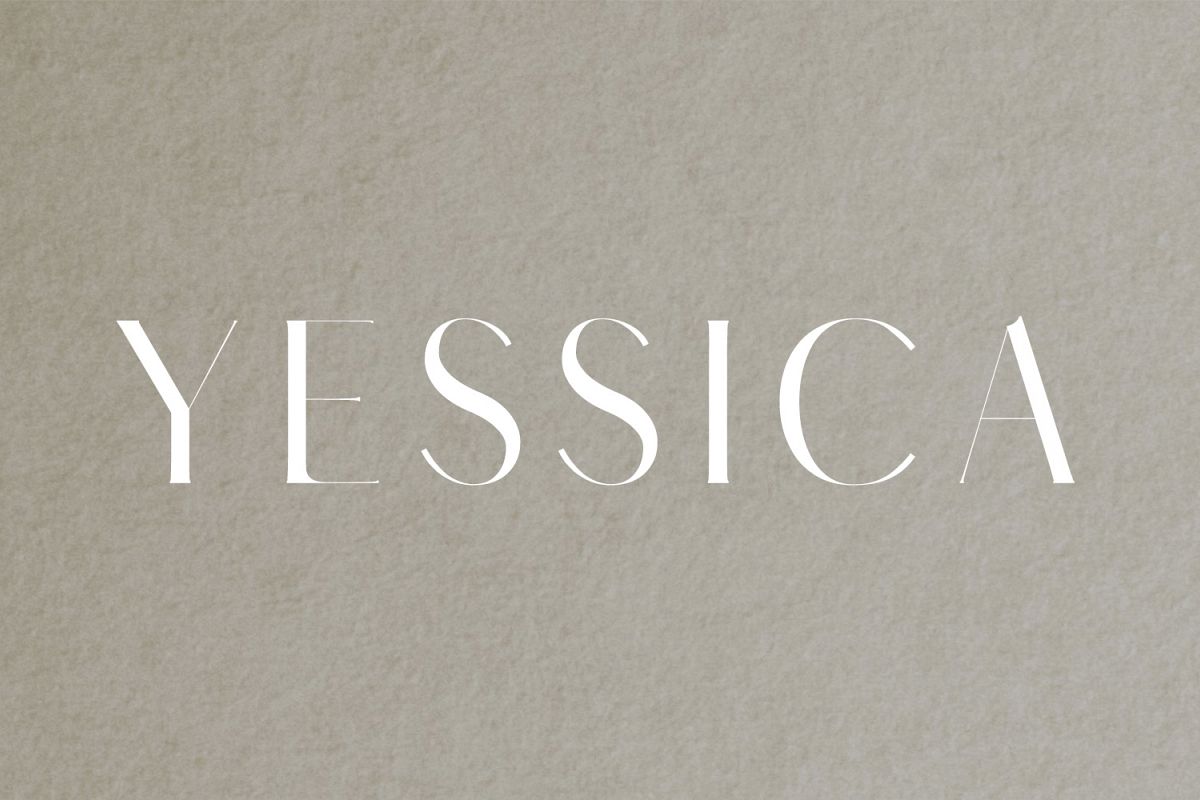
Yessica Sans Serif Font Family
Yessica Sans Serif Font Family is a set of 4 weights font family. It is good for making creative templates and stationary. Yessica typeface suits best for modern / clean designs, logos, headlines, banners and templates etc.It looks gorgeous in all caps with a wide-set spacing if you want to try a classy look, or beautiful on its own in capital and lowercase letters for something completely timeless.Included Features:
• Regular, Thin, Light and Bold Weights
• Extras: Uppercase Multilingual Letters, Lowercase Multilingual Letters, Numbers & Punctuation + Alternatives.
• Yessica is a highly versatile Font Family Pack.
• Includes 4 weights
• The perfect choice for Modern, Fashion & Magazine Titles.
• Great for use on quotes, short phrases, magazines, logotypes and all sorts of advertising.